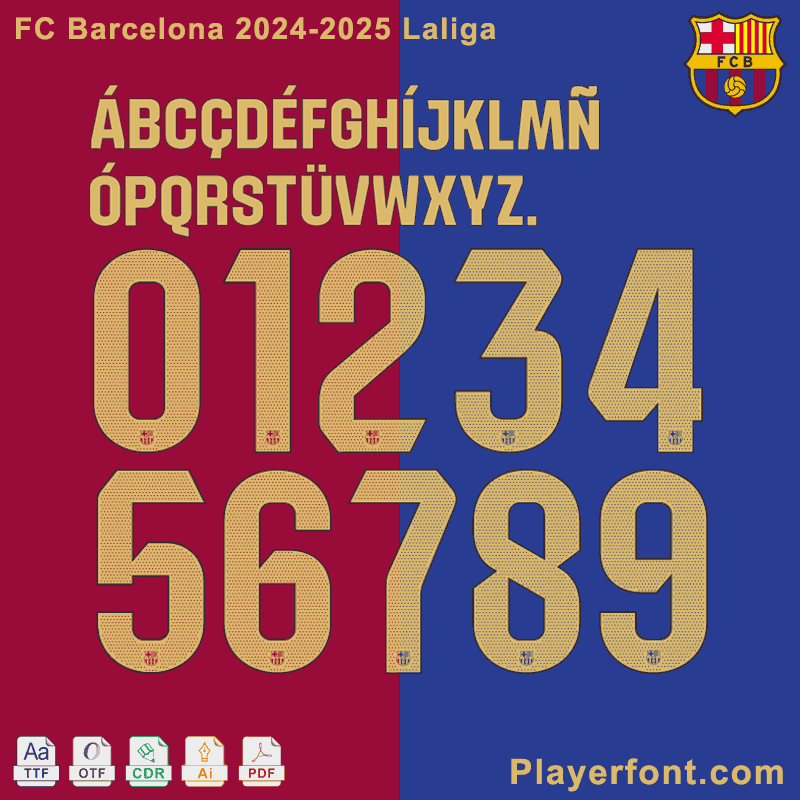
Buy the Barcelona LaLiga 2024-2025 Font Can be used custom FC Barcelona 2024-25 jersey name set. This season Barcelona 2024-2025 font uses La liga unified font. Numbers are covered with hollow out dots and the club logo with hollow at the bottom.